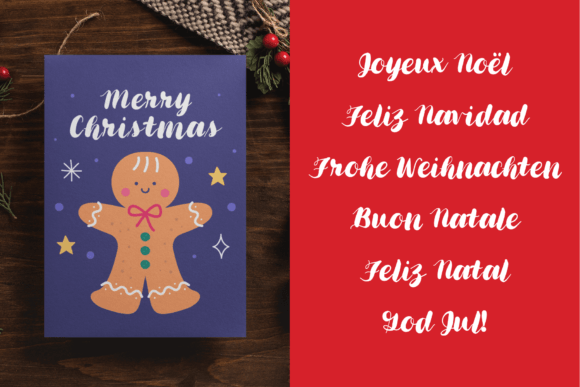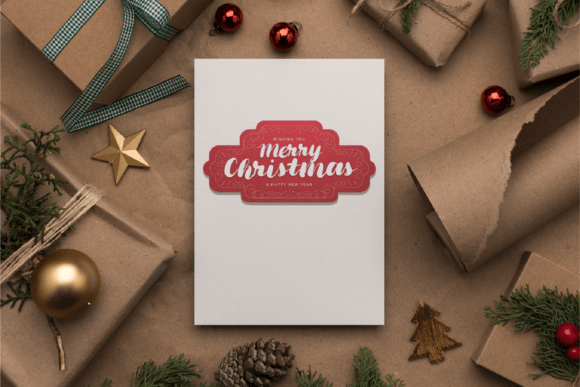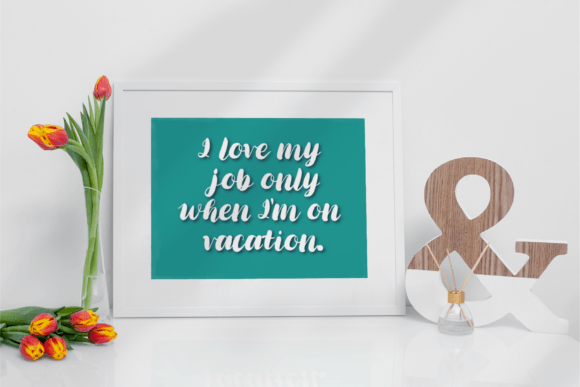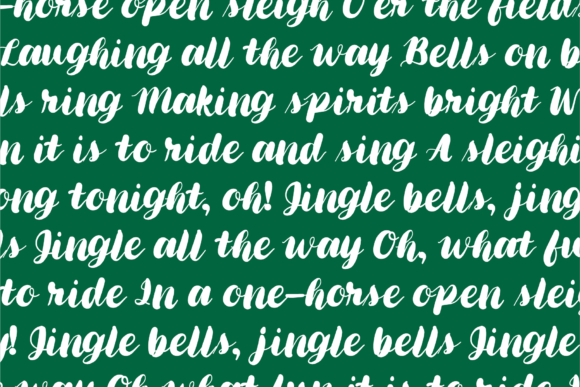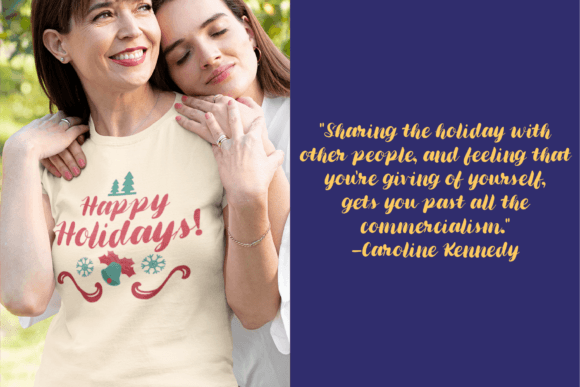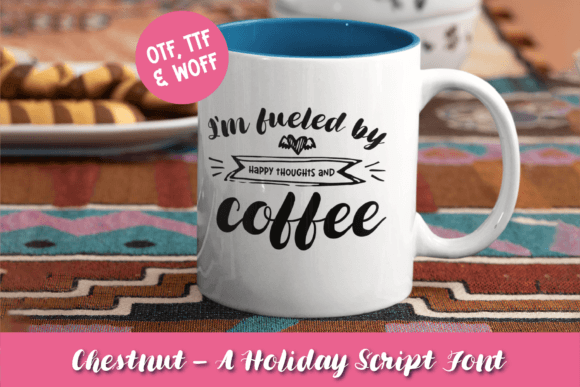
Chestnut Font: A Charming and Festive Handwritten Script Font
Are you looking for a font that can add a touch of warmth and festivity to your designs? Look no further than the Chestnut Font! This charming handwritten script font is perfect for designers and crafters who want to bring a personal touch to their creative projects. In this article, we’ll take a closer look at the Chestnut Font, its features, and how it can elevate your designs to the next level.
What is Chestnut Font?
Chestnut is a beautifully designed handwritten script font that exudes a sense of warmth and festivity. Its charming and elegant lettering makes it perfect for a wide range of design projects, from holiday-themed crafts to wedding invitations and more. The font is carefully crafted to bring a personal touch to your designs, making them stand out from the crowd.
Features of Chestnut Font
So, what makes the Chestnut Font so special? Here are some of its key features:
- Handwritten script font: Chestnut is a handwritten script font that mimics the look of natural handwriting. Its imperfections and variations make it look more organic and personal.
- Charming and festive: The font has a charming and festive feel to it, making it perfect for holiday-themed designs, wedding invitations, and other special occasions.
- Elegant lettering: The lettering in Chestnut is elegant and refined, making it suitable for a wide range of design projects.
- Easy to read: Despite its handwritten nature, the Chestnut Font is easy to read, making it perfect for body text and headings.
How to Use Chestnut Font
Now that we’ve covered the features of the Chestnut Font, let’s talk about how to use it. Here are some ideas to get you started:
- Holiday-themed designs: Use Chestnut to create festive holiday-themed designs, such as Christmas cards, Halloween invitations, and Thanksgiving decorations.
- Wedding invitations: The elegant lettering in Chestnut makes it perfect for wedding invitations, save-the-date cards, and other wedding-related designs.
- Branding and packaging: Use Chestnut to create unique and eye-catching branding and packaging designs that stand out from the crowd.
- Digital crafts: Chestnut is perfect for digital crafts, such as printable art, planners, and journals.
Tips for Using Chestnut Font
Here are some tips for using the Chestnut Font effectively:
- Pair it with other fonts: Chestnut looks great when paired with other fonts. Try pairing it with a sans-serif font for a modern look or with a serif font for a more traditional look.
- Use it for headings and titles: Chestnut is perfect for headings and titles. Use it to add a touch of elegance and sophistication to your designs.
- Experiment with colors: The Chestnut Font looks great in a variety of colors. Experiment with different colors to find the one that works best for your design.
In conclusion, the Chestnut Font is a charming and festive handwritten script font that can add a touch of warmth and elegance to your designs. Its elegant lettering, easy readability, and festive feel make it perfect for a wide range of design projects. Whether you’re a designer or a crafter, Chestnut is a great addition to your font collection. So why not give it a try and see how it can elevate your designs to the next level?